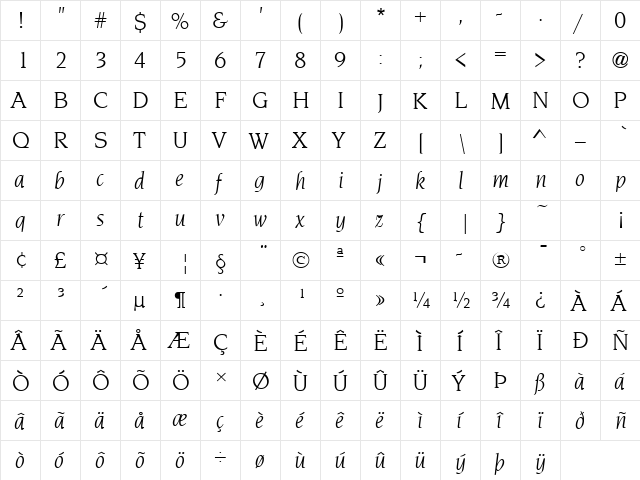
Navarro Italic
Design Context for Navarro Typeface
Navarro offers clean, dependable letterforms without strong stylistic allegiance, making it a practical choice for designers who need flexibility. The dynamic lean of this cut emphasises speed and emphasis in any layout.
Pro Tip: Use Navarro for emphasis, pull quotes, and subheadings where its slanted energy can add rhythm to the layout.